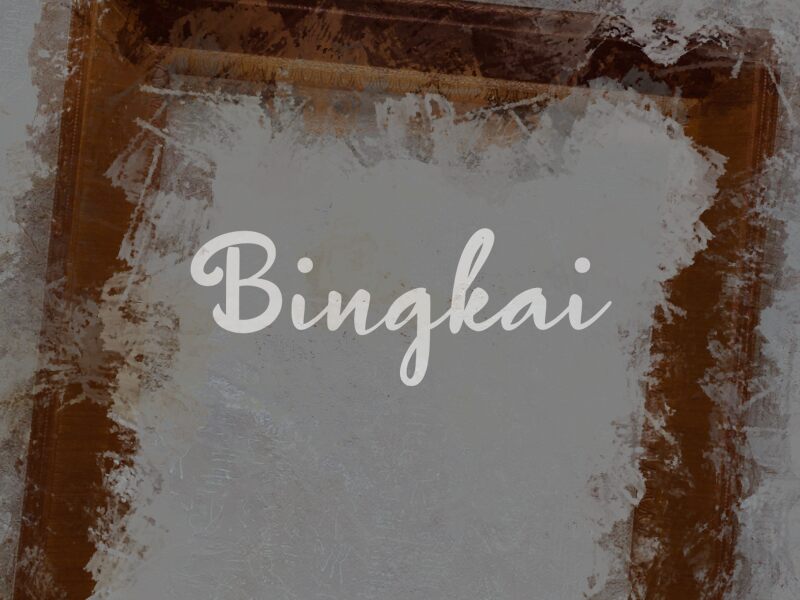
Bingkai
Bingkai, a captivating semi-bold handwritten font by wep, effortlessly blends elegance with playfulness. With its artistic strokes and unique flair, this font is perfect for a variety of projects. Add a touch of sophistication to wedding invitations or create eye-catching logos for boutique brands. Enhance the charm of food packaging or bring life to children's book illustrations. Bingkai's versatility shines through in social media graphics, bringing an organic and personal touch to your posts. Embrace the creativity this font offers and let Bingkai become the voice of your next design endeavor.